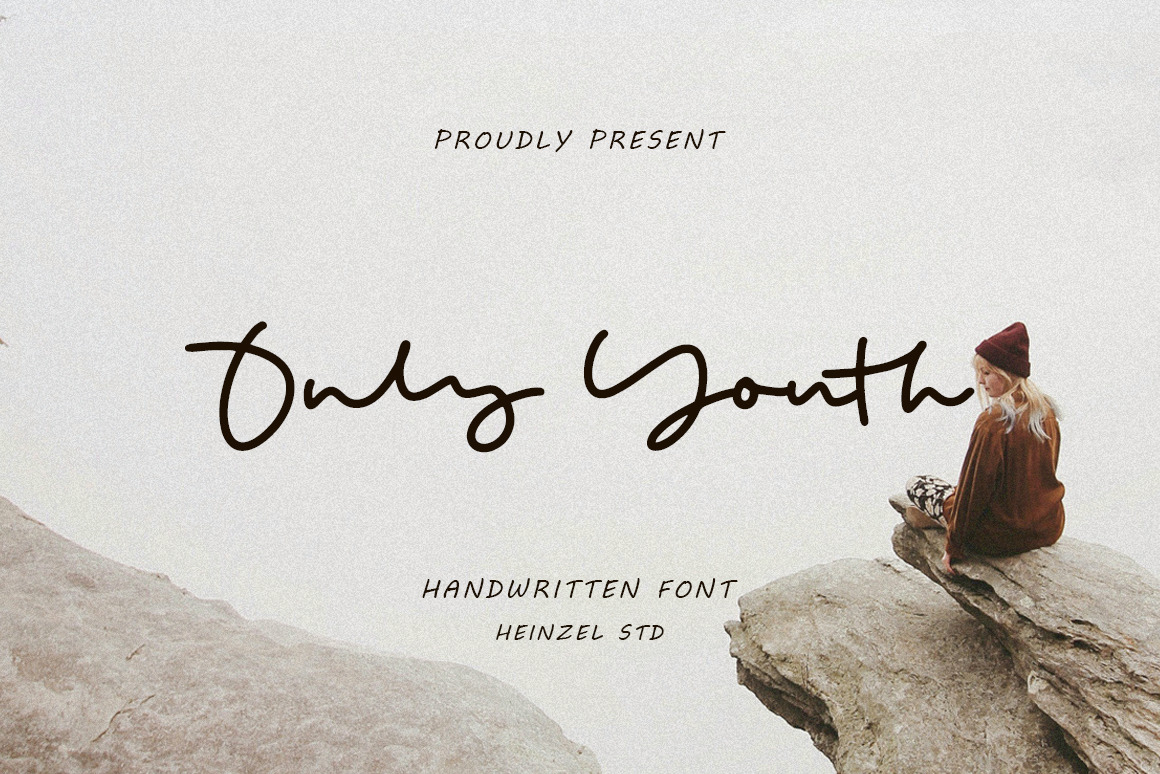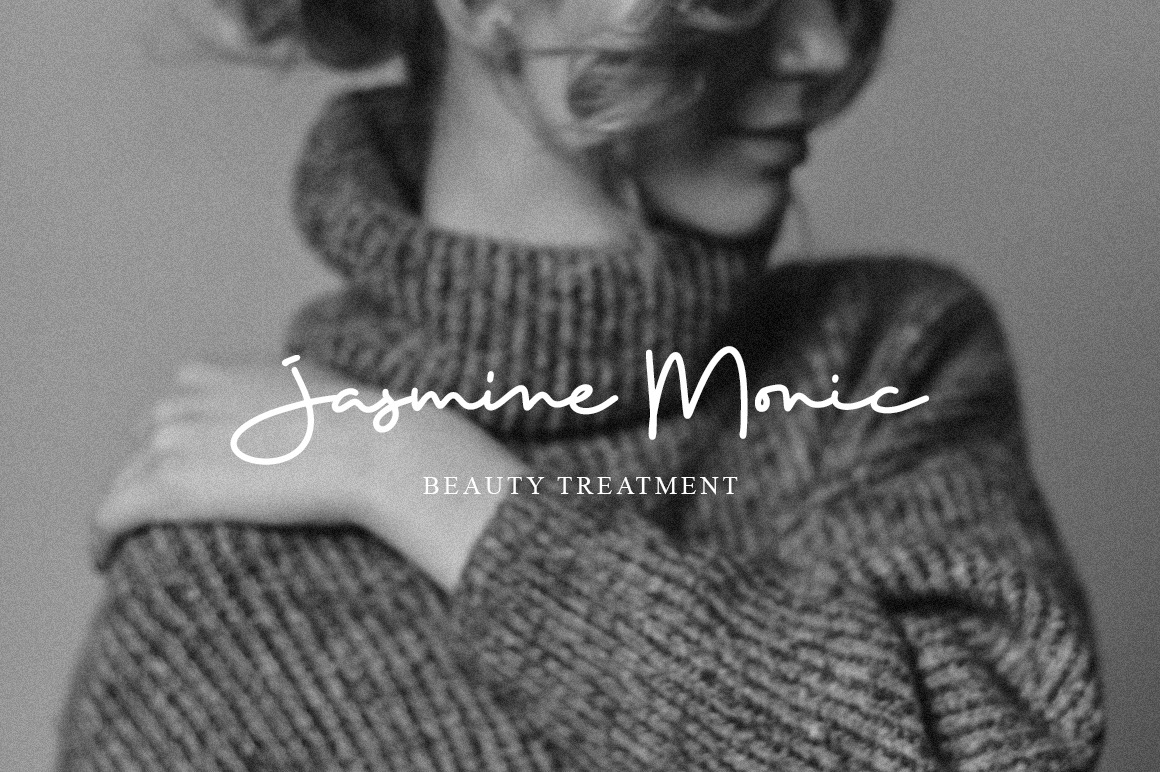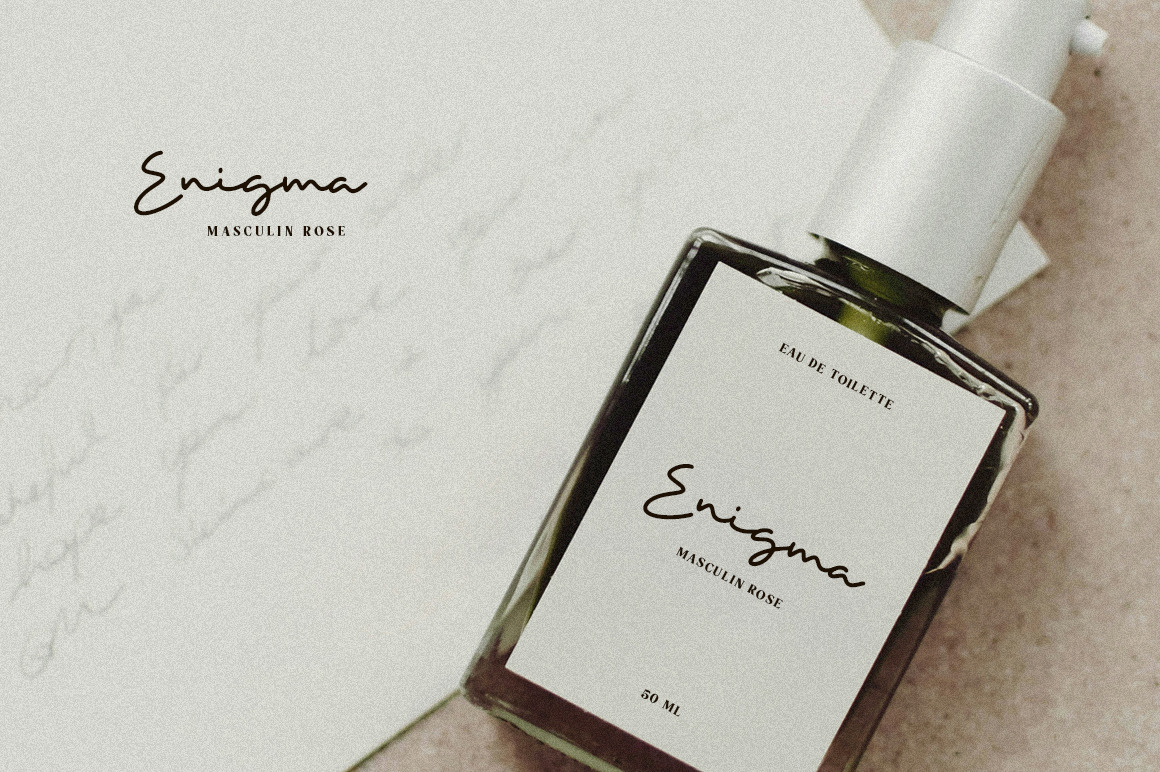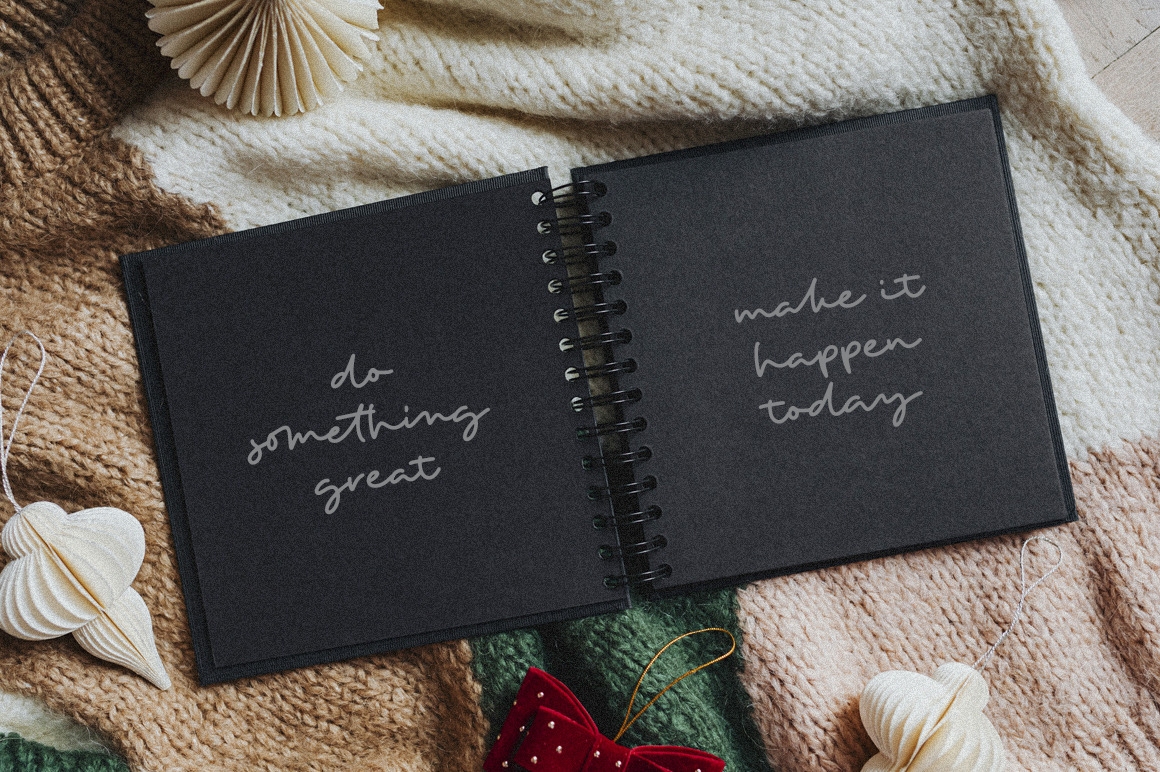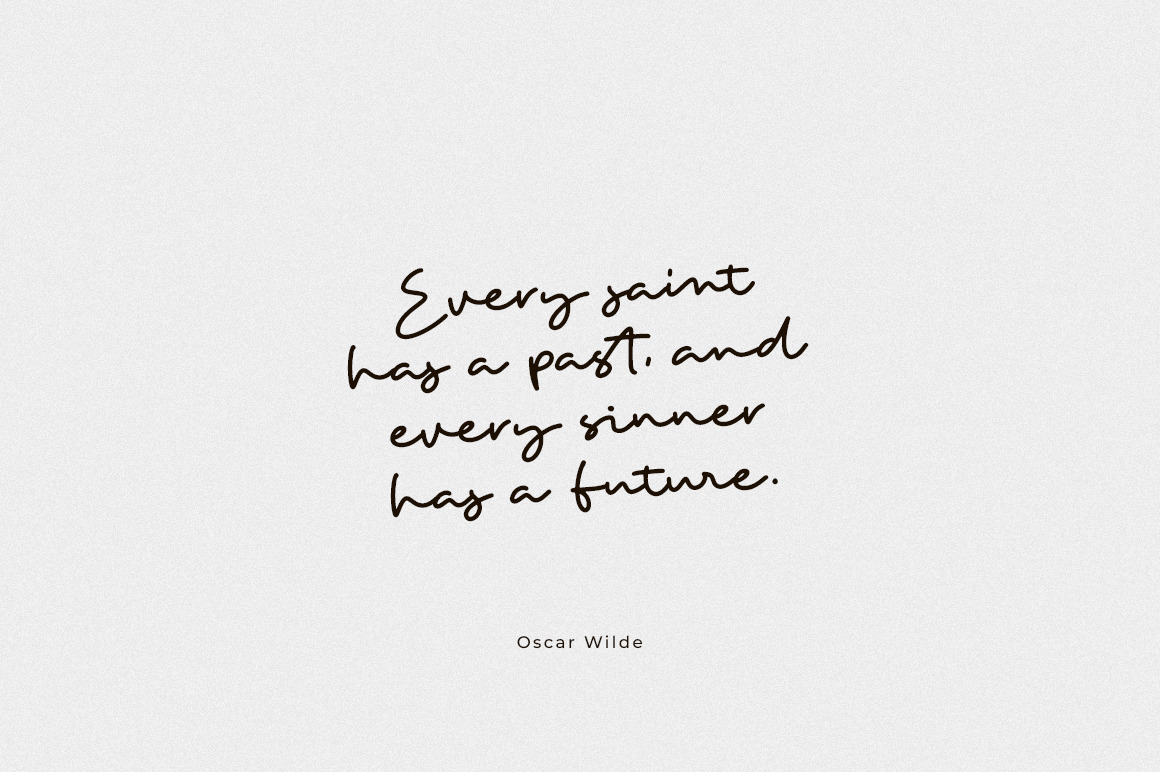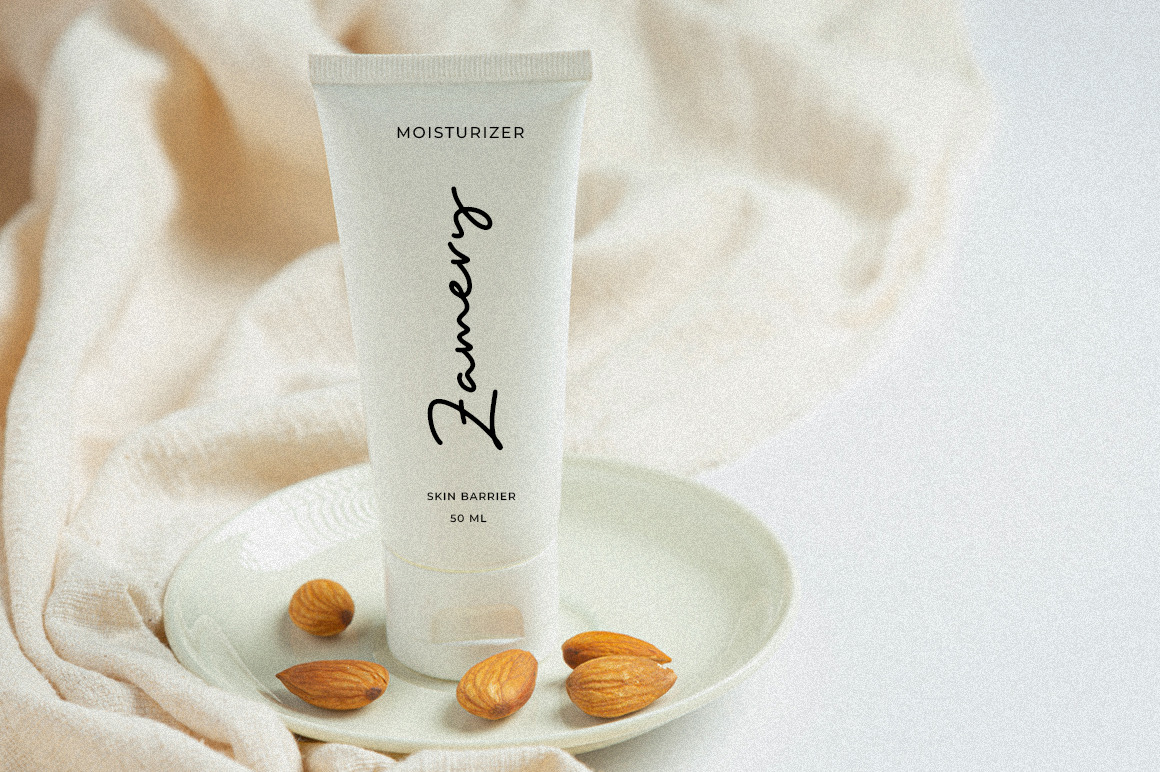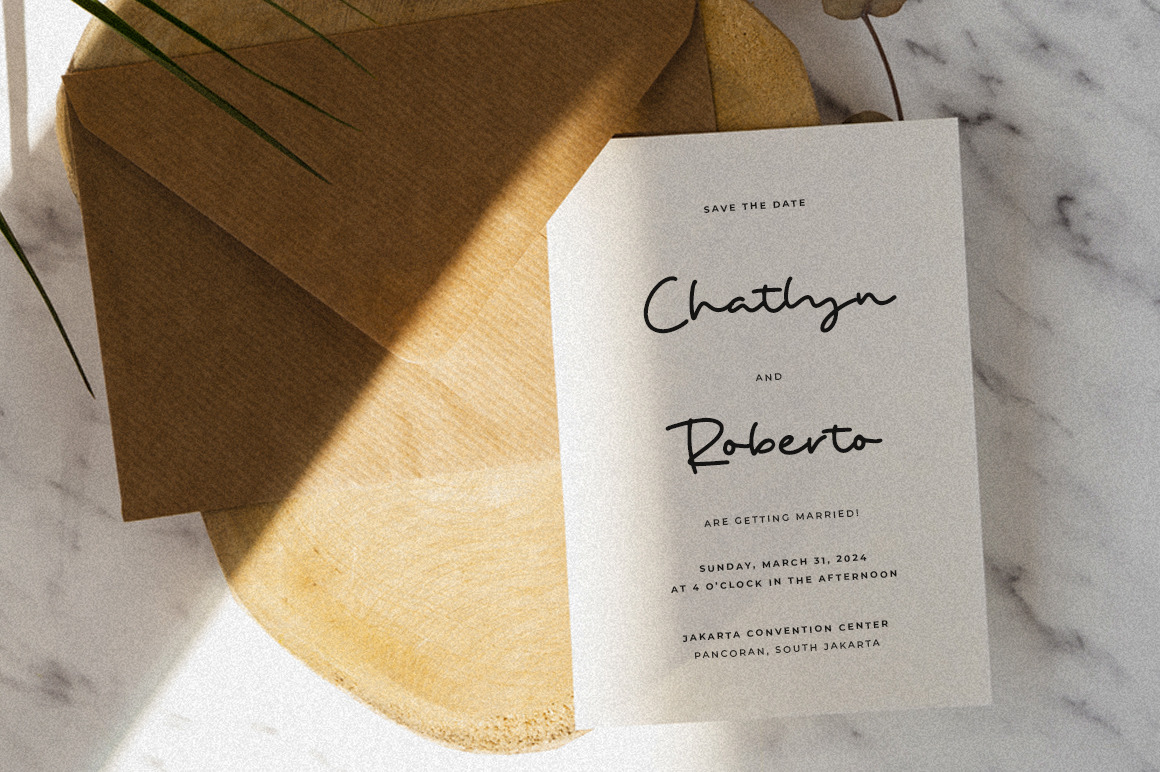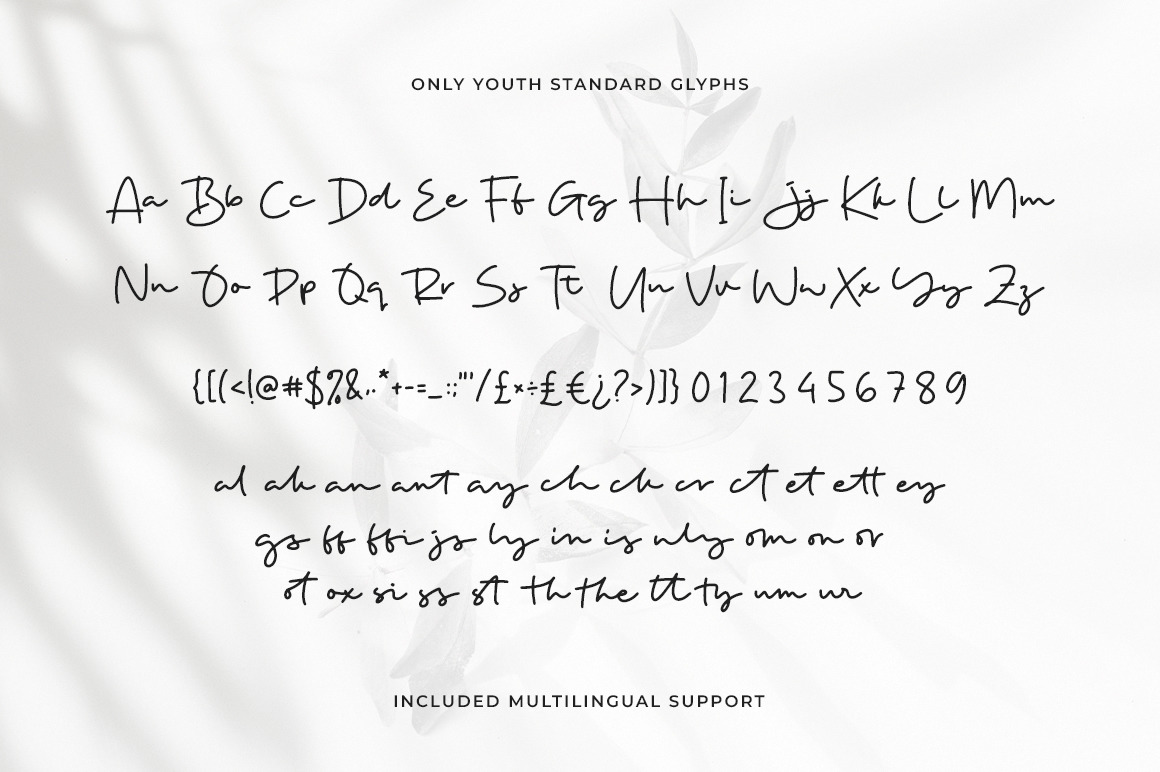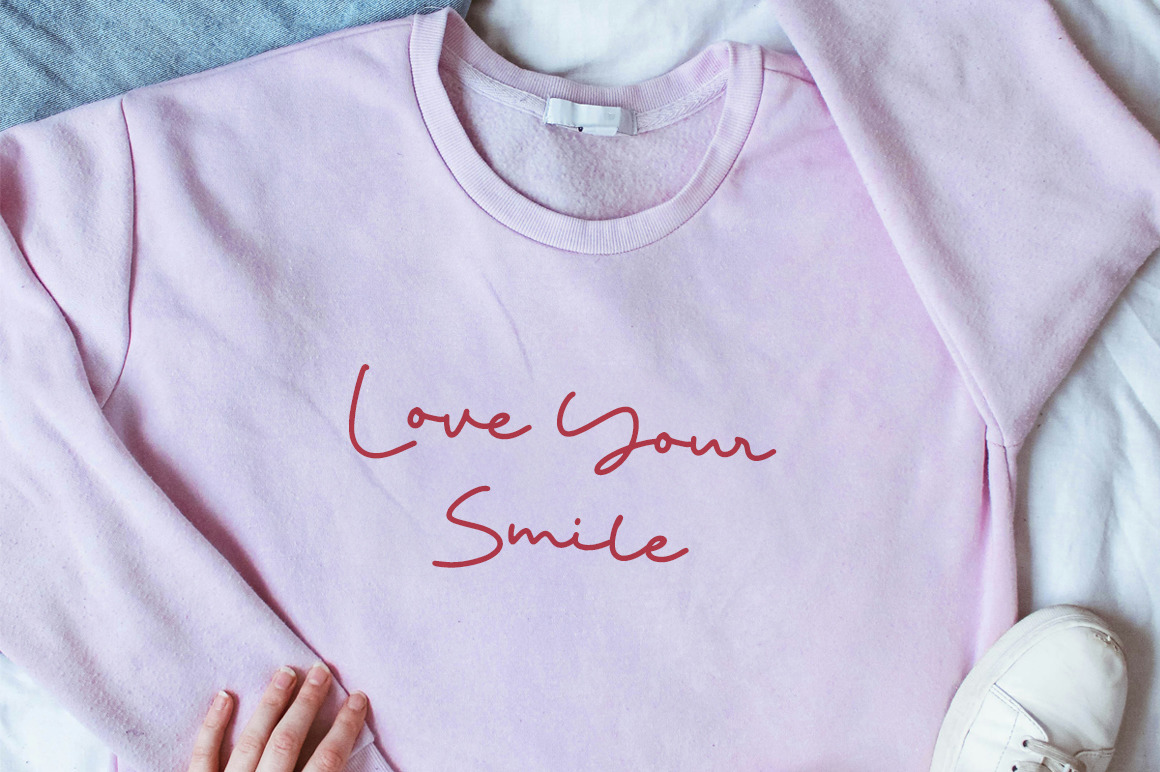
Only Youth Font
Only Youth is a flowing handwritten font, described by an elegant touch, perfect for your favorite projects. It looks stunning on wedding invitations, thank you cards, quotes, greeting cards, logos, business cards and every other design which needs a handwritten touch. Fall in love with its incredibly distinct and timeless style and use it to create spectacular designs!
Only Youth Features :
- Uppercase and Lowercase
- Numerals and Punctuations
- Ligatures and Alternates